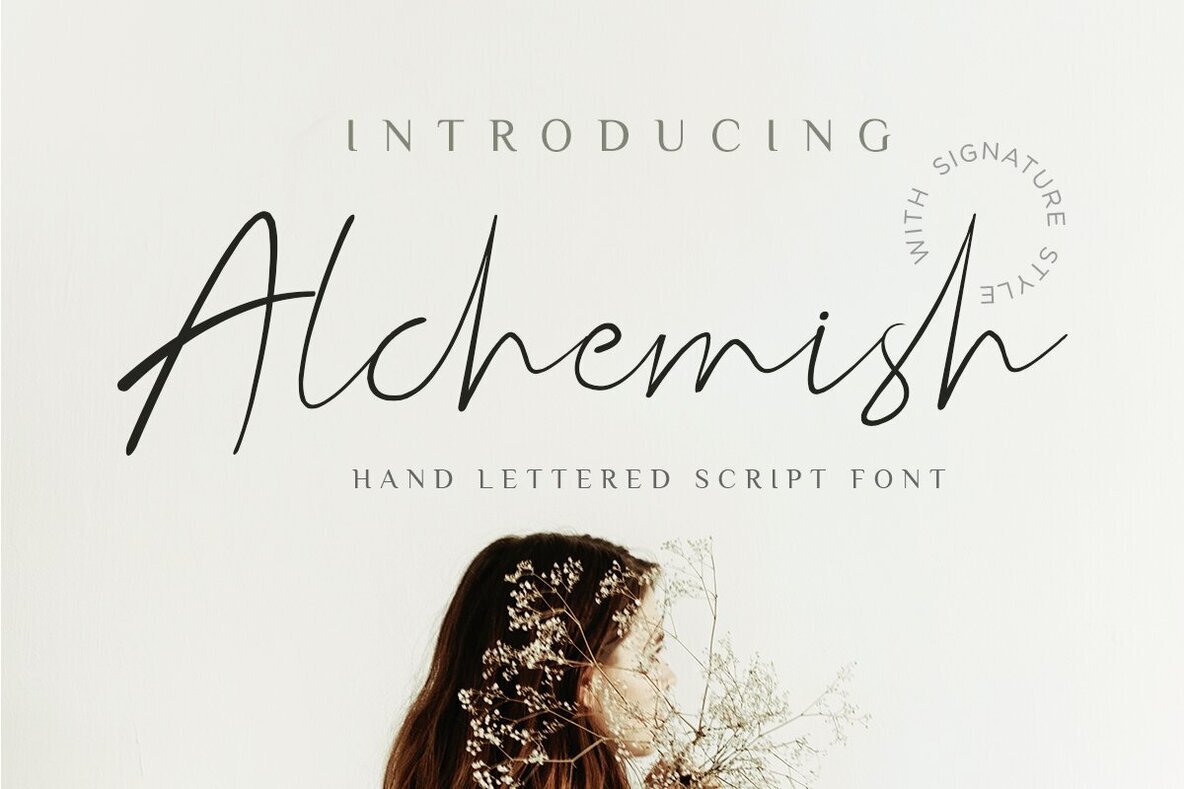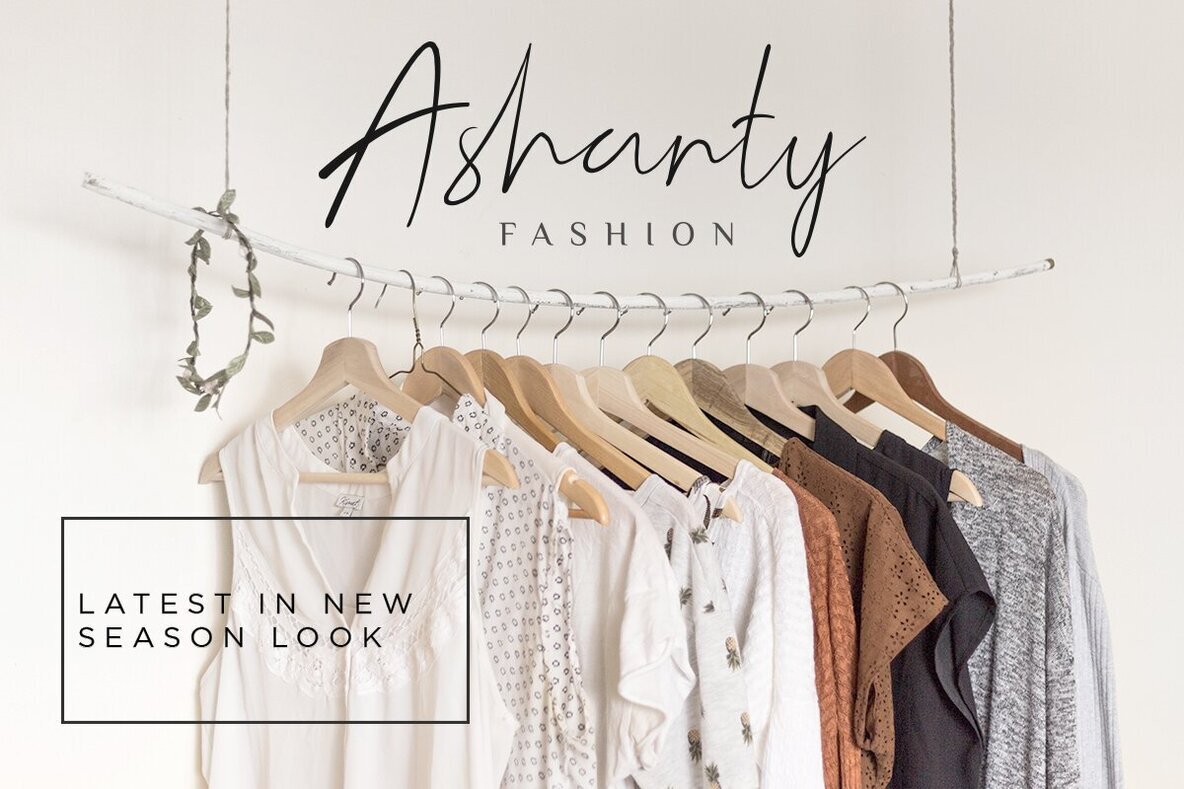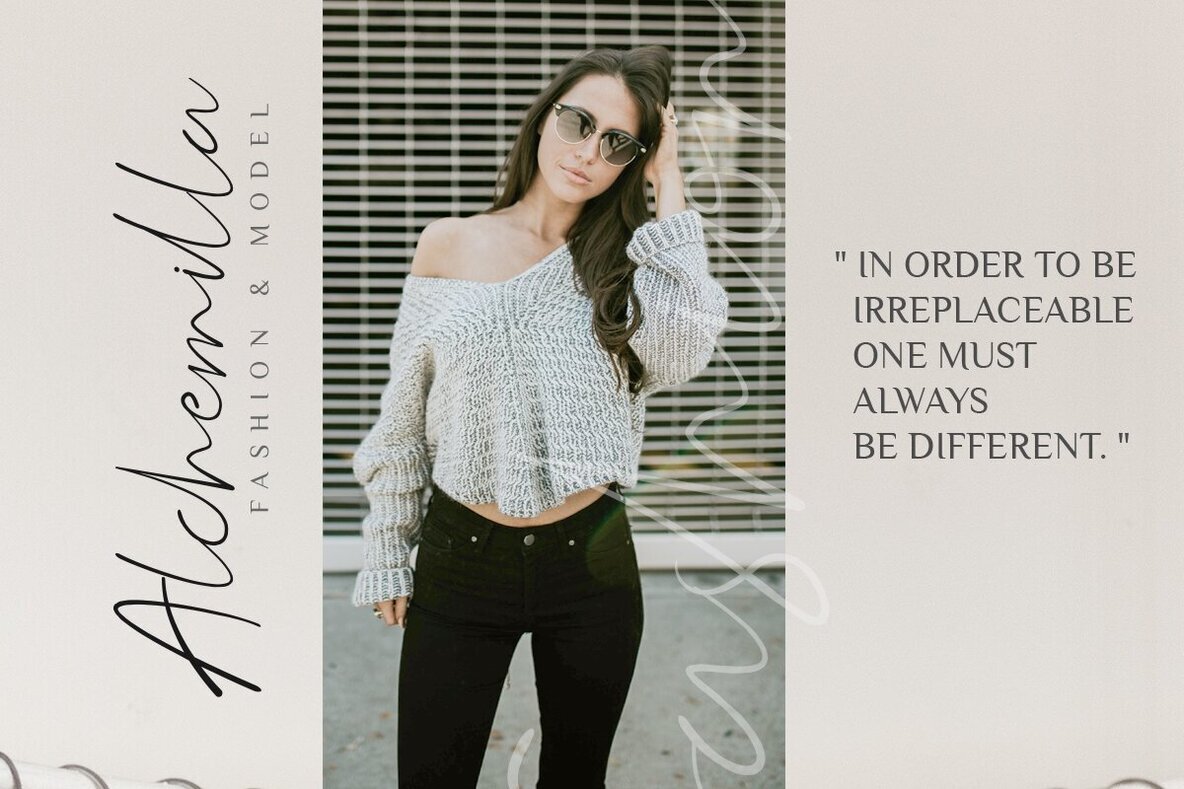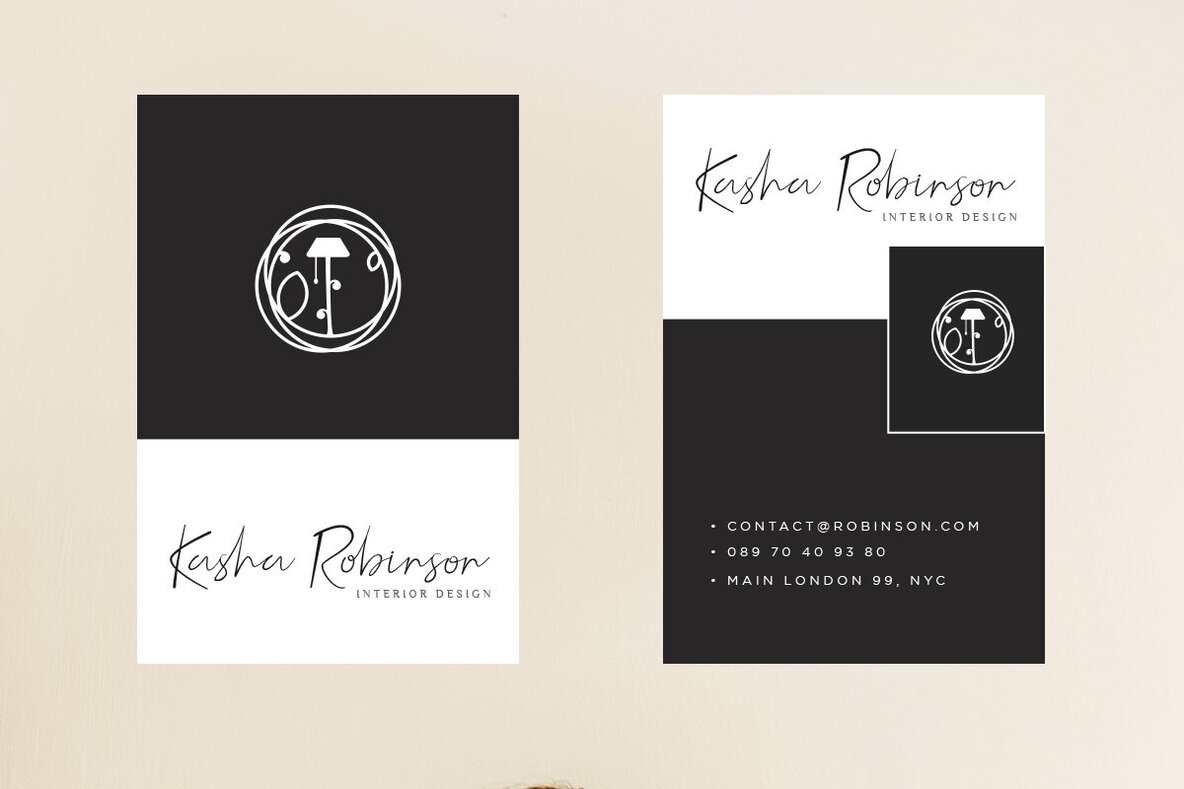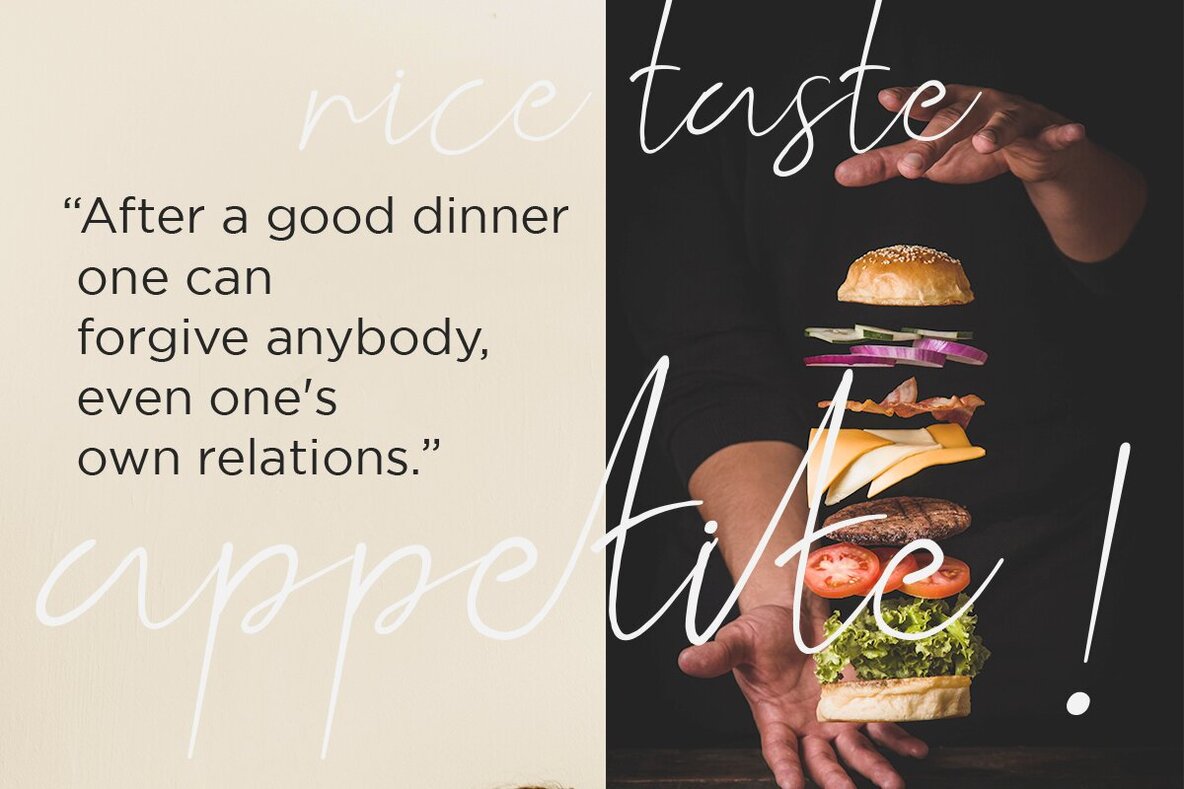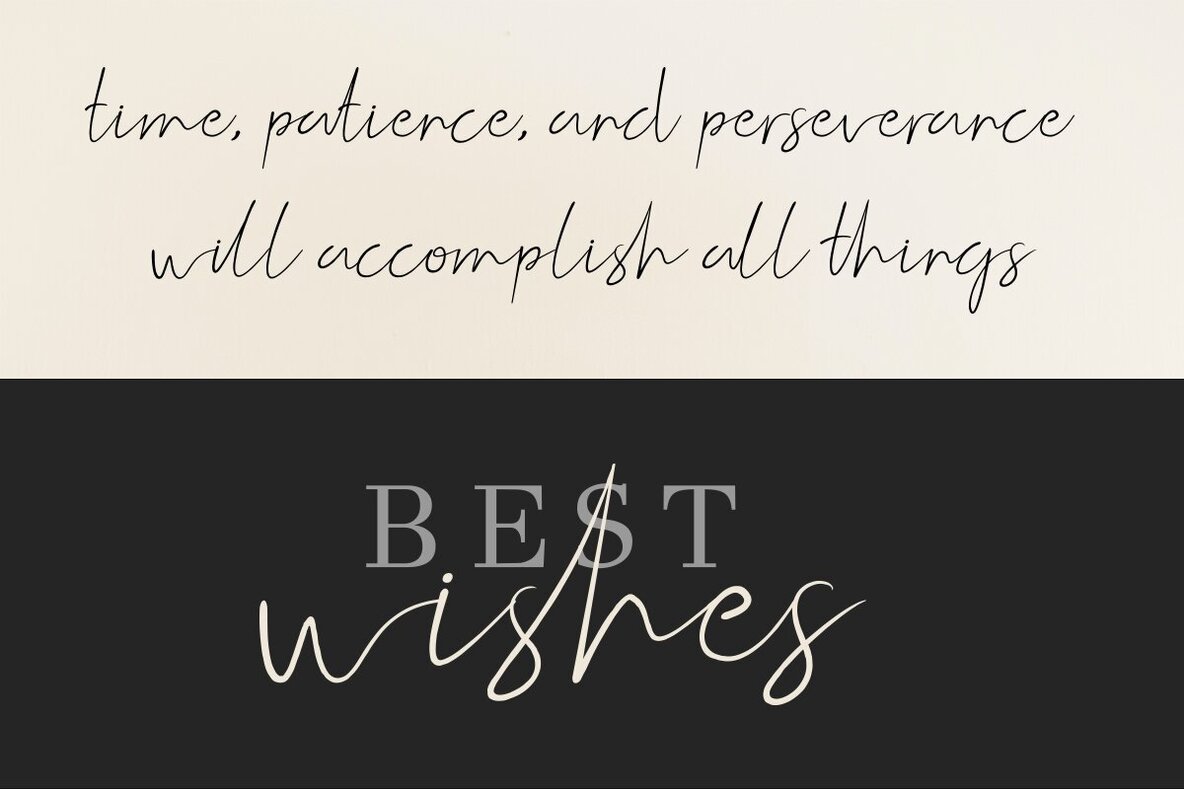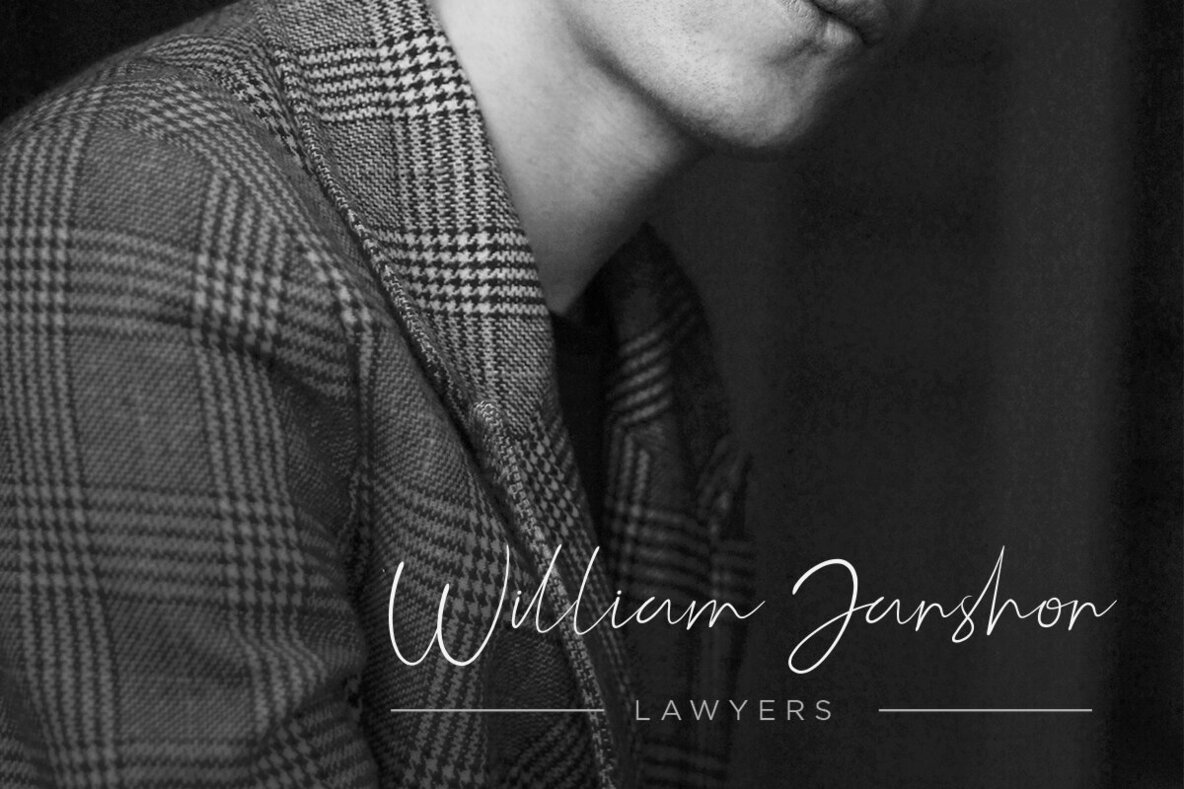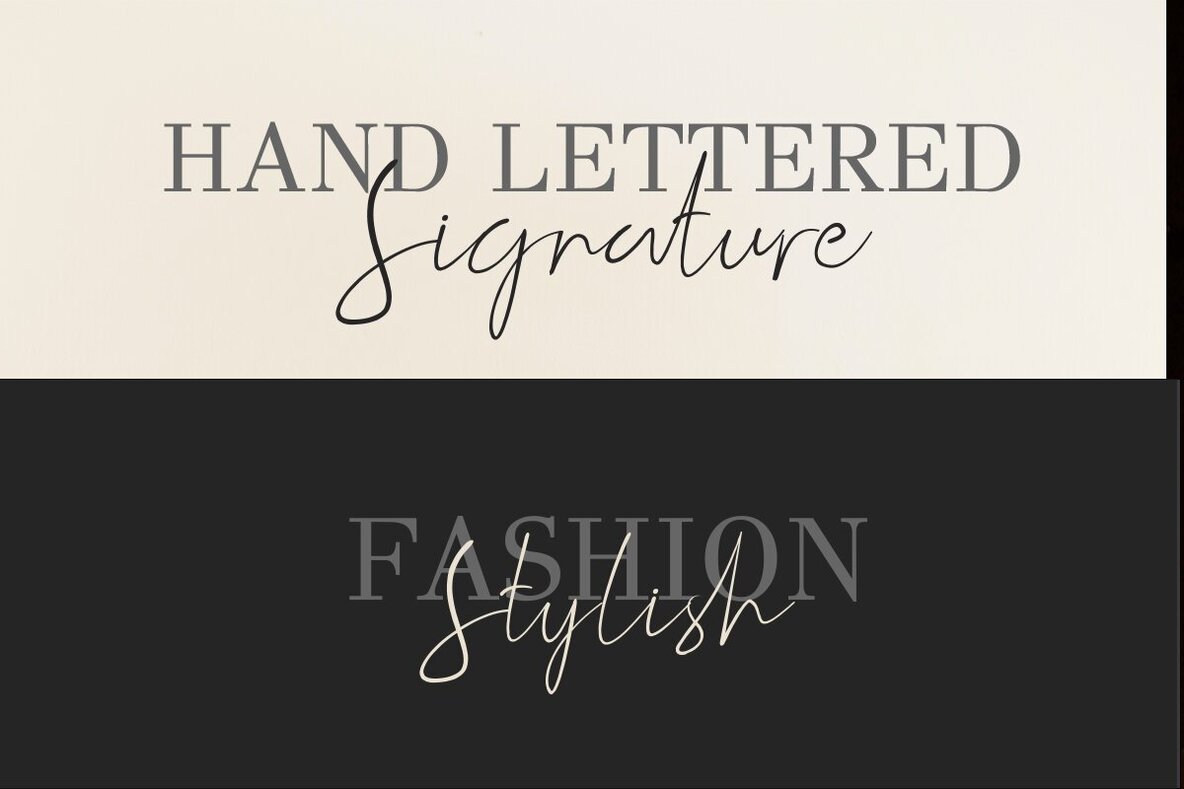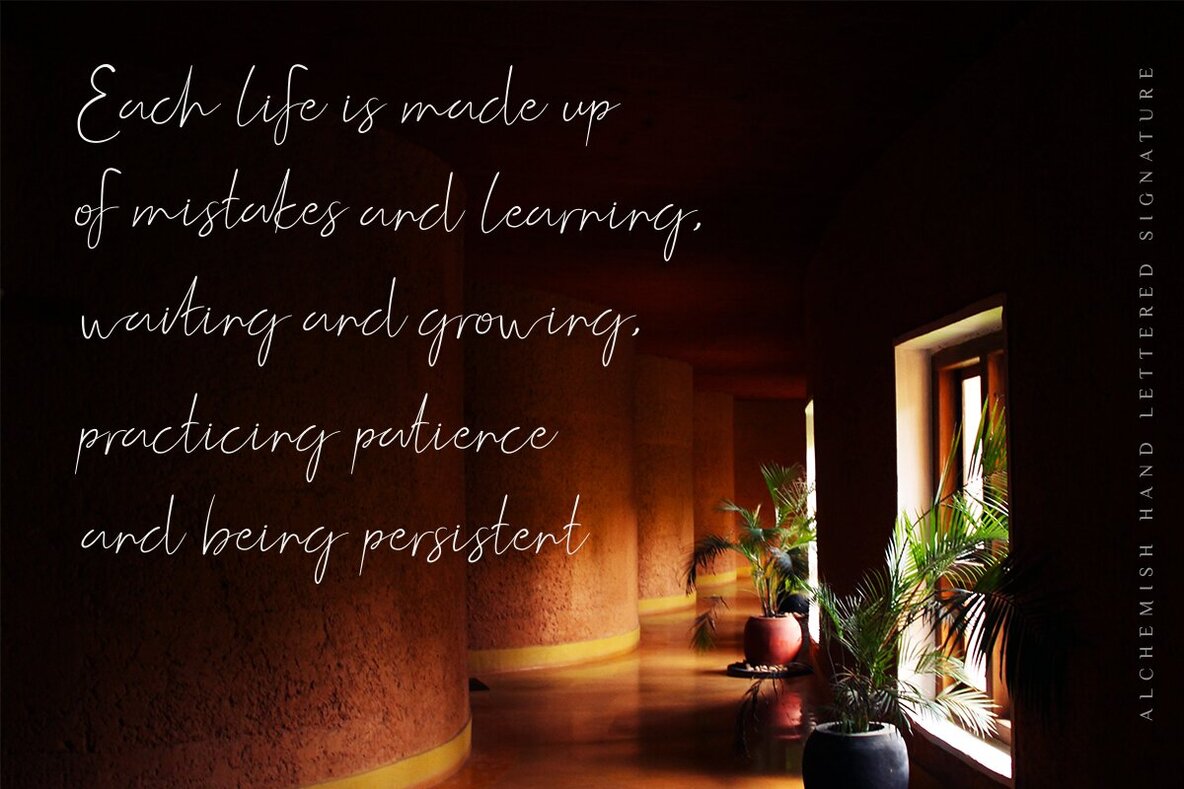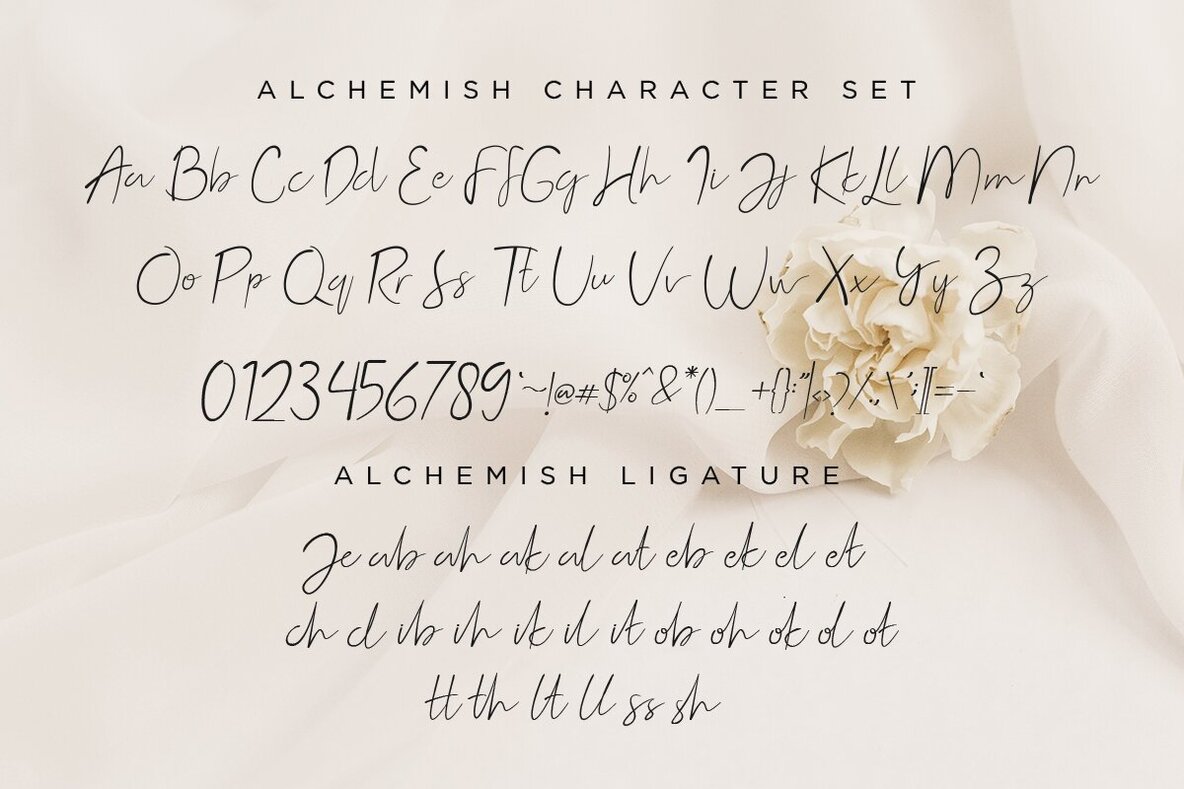
Alchemish Font
Alchemish
Alchemish offers a fluid, hand-lettered script style that captures the nuances of an authentic handwritten signature. Each letter features soft strokes and gentle curves, adding a refined personal touch to every design. The font is well-suited for branding, logos, wedding invitations, social media graphics, and contemporary fashion projects. Distinct for its elegant lines and subtle variations, Alchemish combines warmth and sophistication. The natural imperfections create a human quality, ensuring each word feels unique. Its striking visual charm fits both print and digital environments, making your creative projects visually engaging and approachable.Alchemish Hand-Lettered Script Font